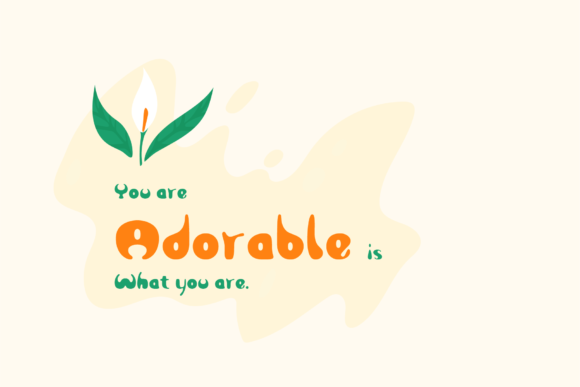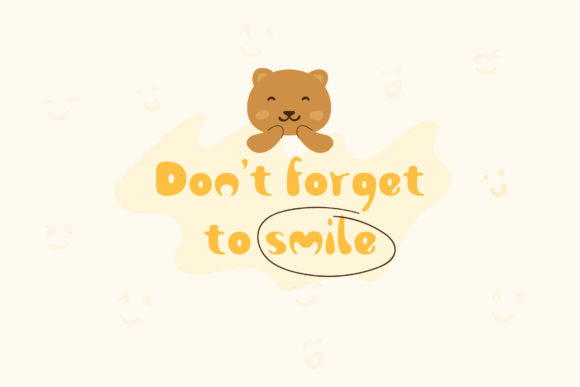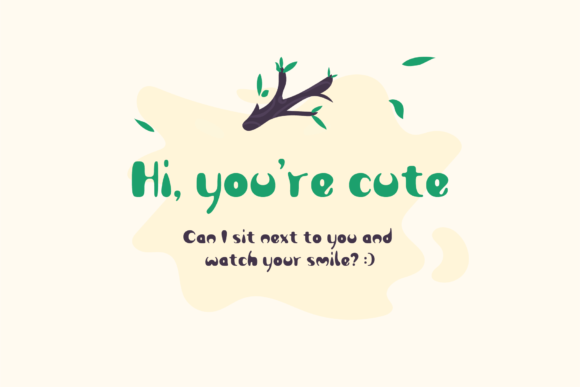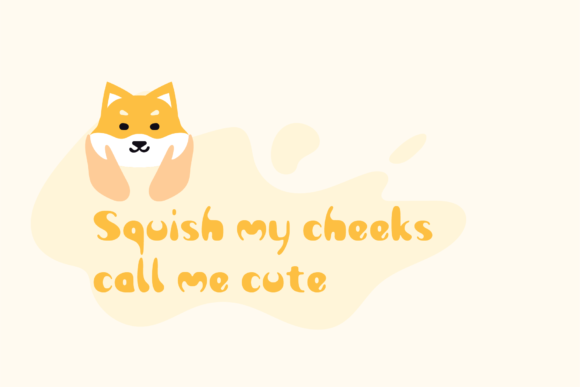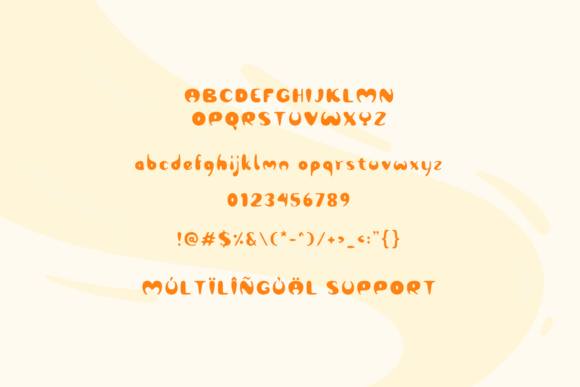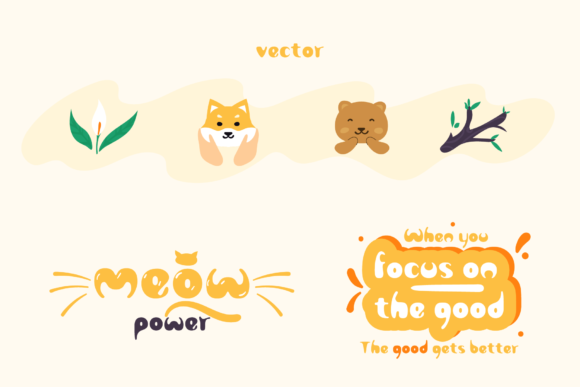
Introducing Gemoy Font: The Playful and Authentic Display Font for Fun Projects
Are you a designer, crafter, or educator looking for a font that embodies playfulness and authenticity? Look no further than Gemoy Font! This cute and bubbly display font is perfect for any children’s activity or school project that requires a fun and lively touch. In this article, we’ll dive into the features and benefits of Gemoy Font, and explore how it can add a spark of creativity to your designs.
What is Gemoy Font?
Gemoy Font is a display font designed to capture the essence of playfulness and authenticity. Its cute and bubbly personality makes it an ideal choice for projects that require a fun and youthful vibe. Whether you’re creating materials for a children’s party, a school project, or a craft activity, Gemoy Font is sure to bring a smile to your audience’s faces.
Key Features of Gemoy Font
- Playful and Authentic: Gemoy Font is designed to evoke a sense of playfulness and authenticity, making it perfect for projects that require a fun and lively touch.
- Cute and Bubbly: The font’s cute and bubbly personality is sure to capture the attention of your audience and add a touch of whimsy to your designs.
- Display Font: Gemoy Font is a display font, making it perfect for headlines, titles, and other prominent text elements.
- Easy to Read: Despite its playful nature, Gemoy Font is easy to read, making it suitable for use in a variety of projects, from children’s activity sheets to school posters.
Benefits of Using Gemoy Font
So, why choose Gemoy Font for your projects? Here are just a few benefits of using this fun and playful font:
- Adds a Touch of Whimsy: Gemoy Font adds a touch of whimsy and playfulness to your designs, making them more engaging and fun for your audience.
- Perfect for Children’s Projects: The font’s cute and bubbly personality makes it perfect for projects aimed at children, from activity sheets to party invitations.
- Easy to Pair with Other Fonts: Gemoy Font is easy to pair with other fonts, making it versatile and flexible for use in a variety of projects.
- Instantly Recognizable: The font’s unique personality makes it instantly recognizable, adding a touch of personality to your designs.
How to Use Gemoy Font in Your Projects
Gemoy Font is easy to use in a variety of projects, from digital designs to print materials. Here are a few ideas to get you started:
- Children’s Activity Sheets: Use Gemoy Font to create fun and engaging activity sheets for kids, complete with colorful illustrations and playful text.
- School Posters: Add a touch of whimsy to your school posters with Gemoy Font, making them more engaging and fun for students.
- Party Invitations: Use Gemoy Font to create cute and playful party invitations that are sure to delight kids and parents alike.
- Craft Projects: Add a touch of personality to your craft projects with Gemoy Font, from handmade cards to DIY decorations.
In conclusion, Gemoy Font is a fun and playful display font that’s perfect for any children’s activity or school project. Its cute and bubbly personality adds a touch of whimsy and authenticity to your designs, making them more engaging and fun for your audience. Whether you’re a designer, crafter, or educator, Gemoy Font is sure to become a go-to font in your collection.